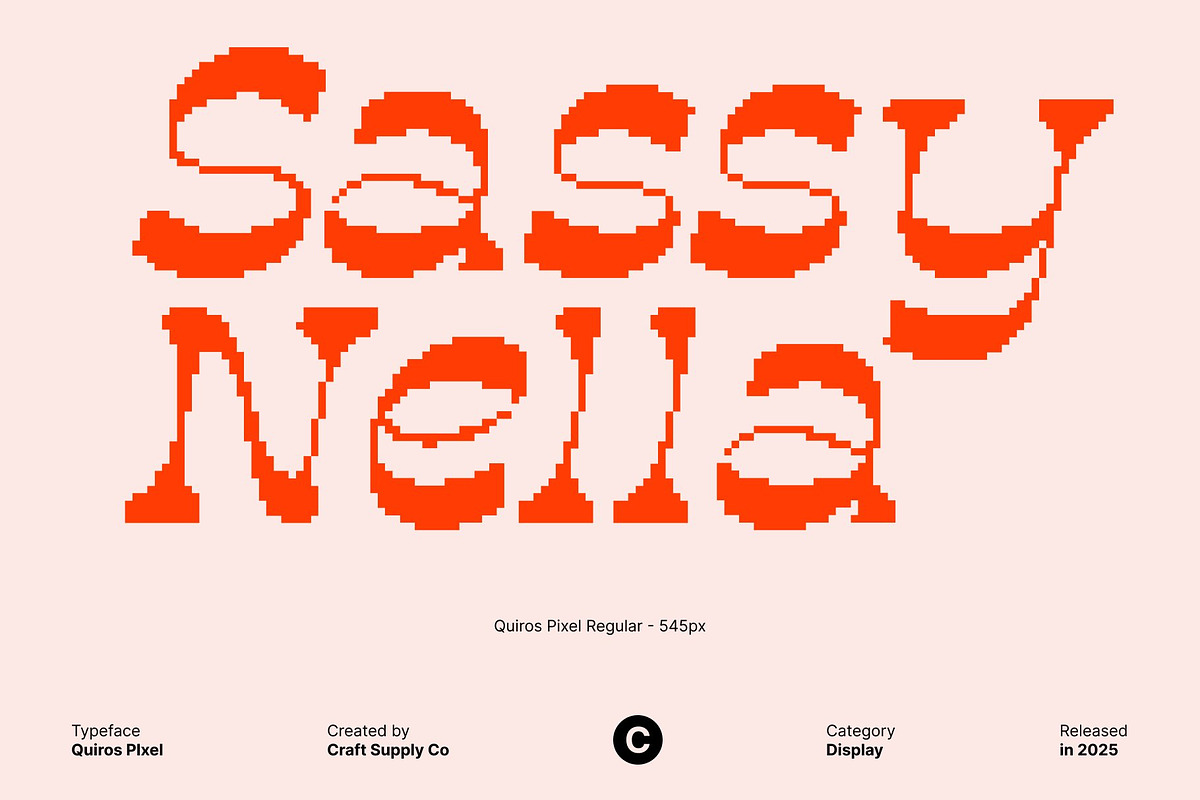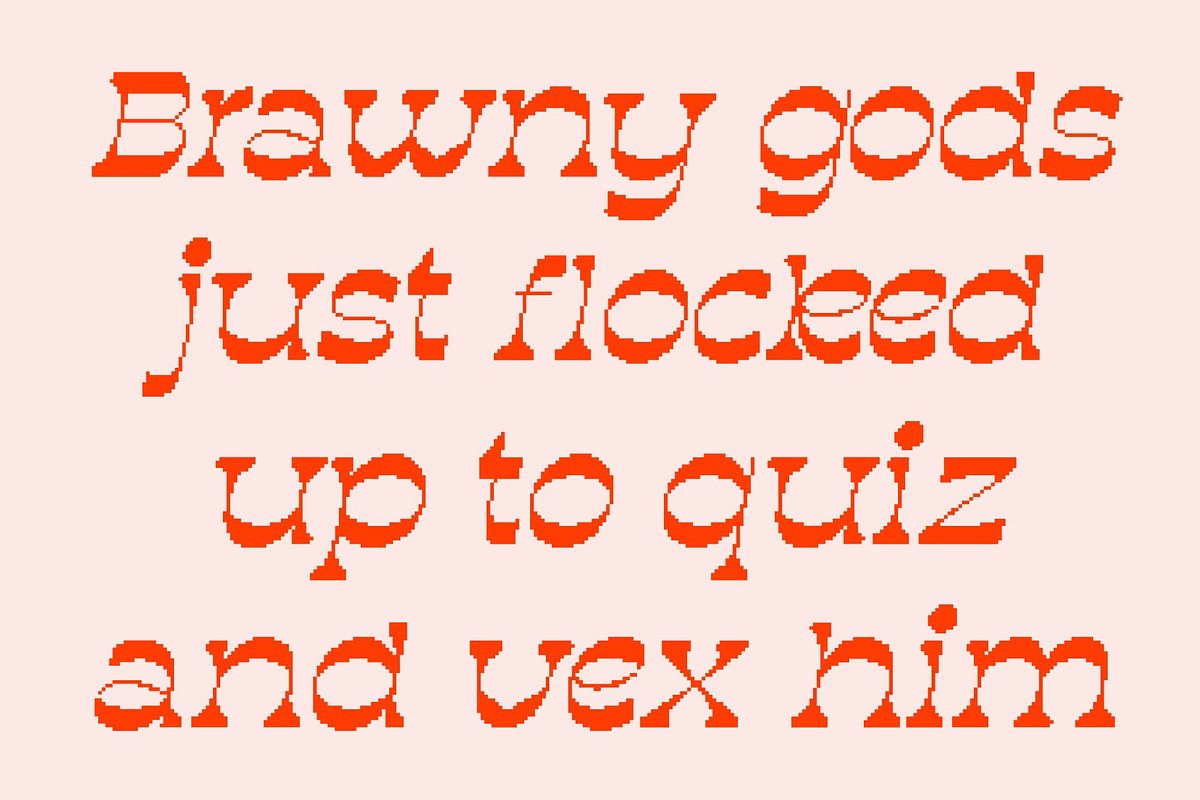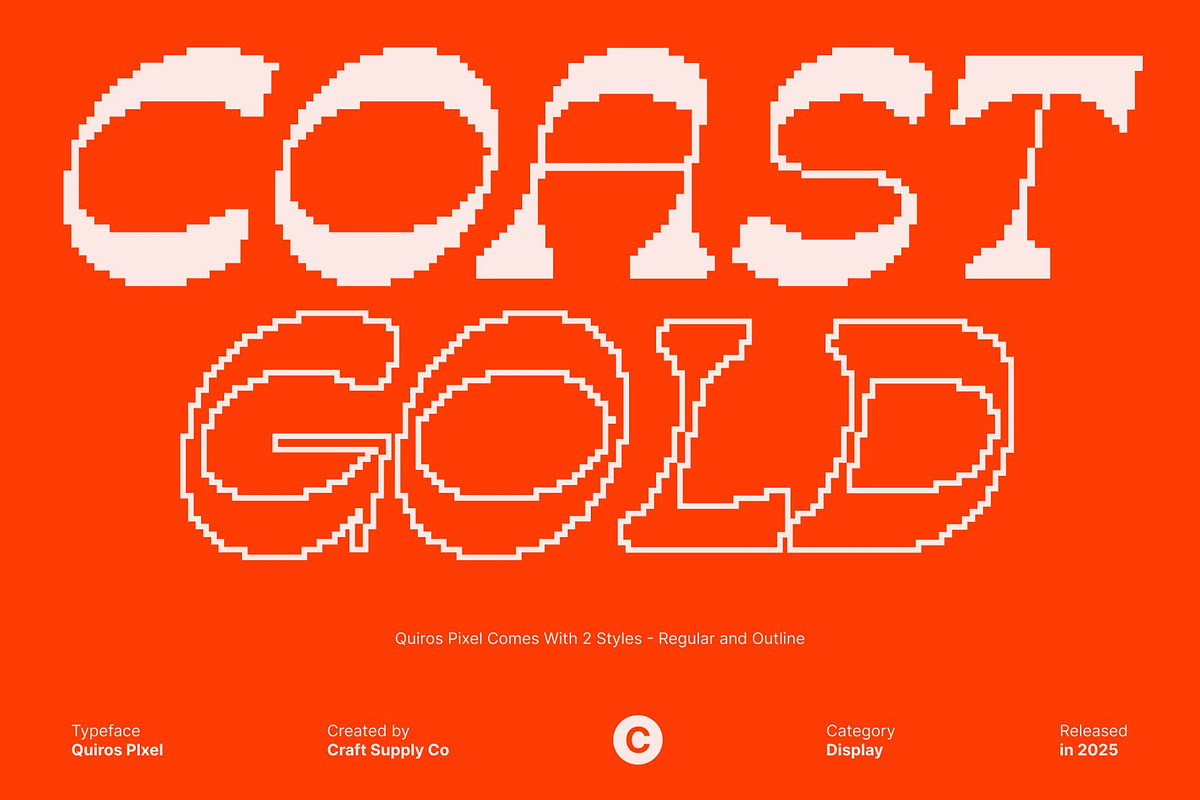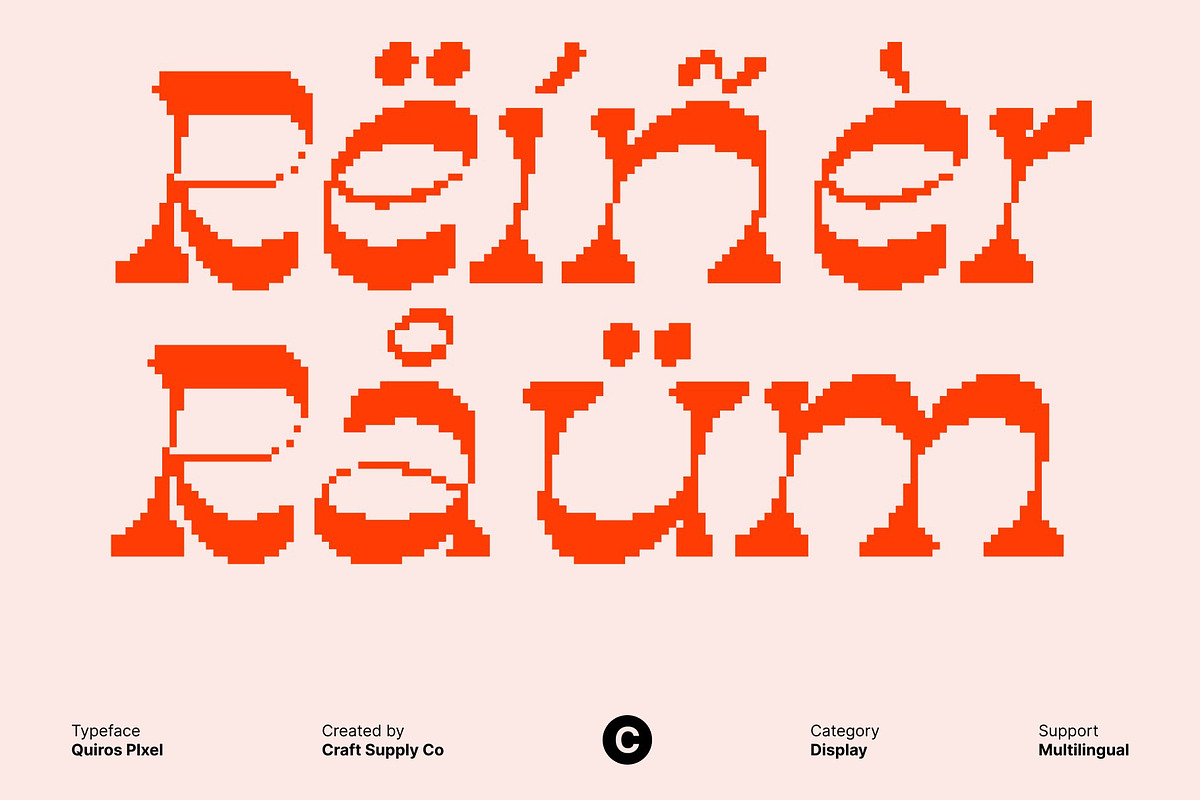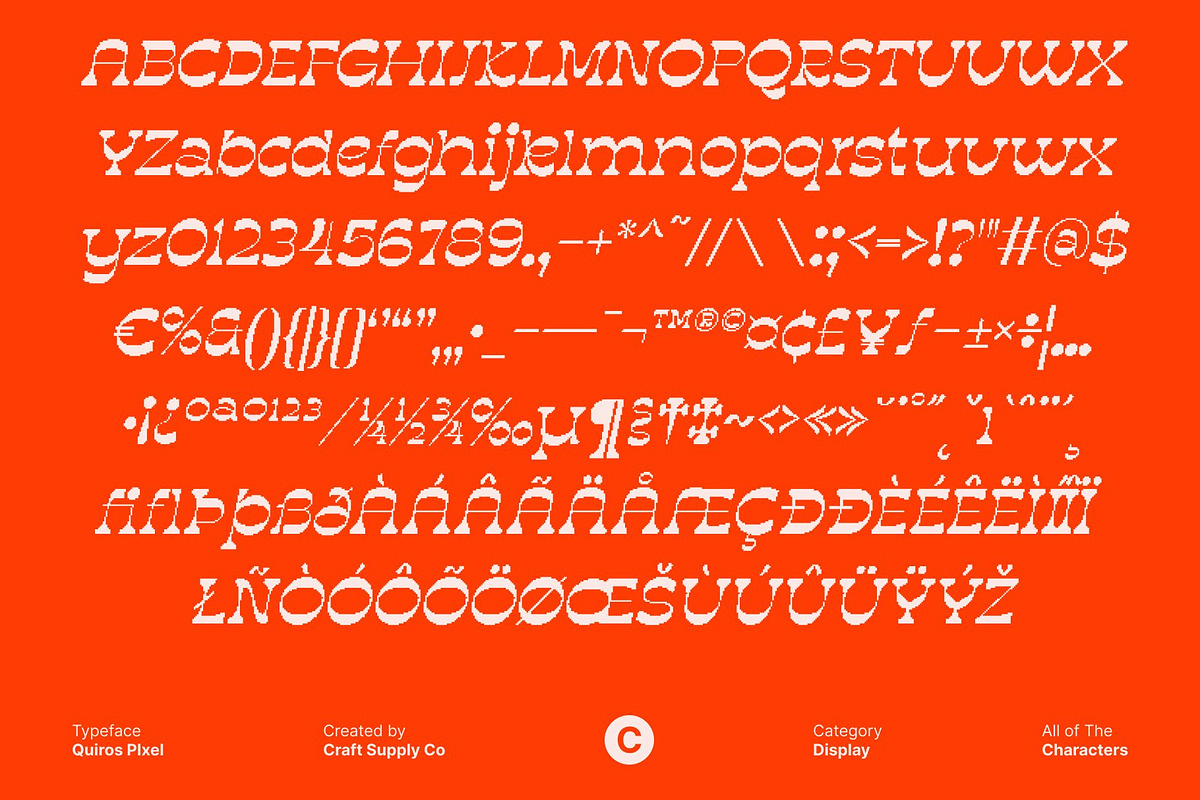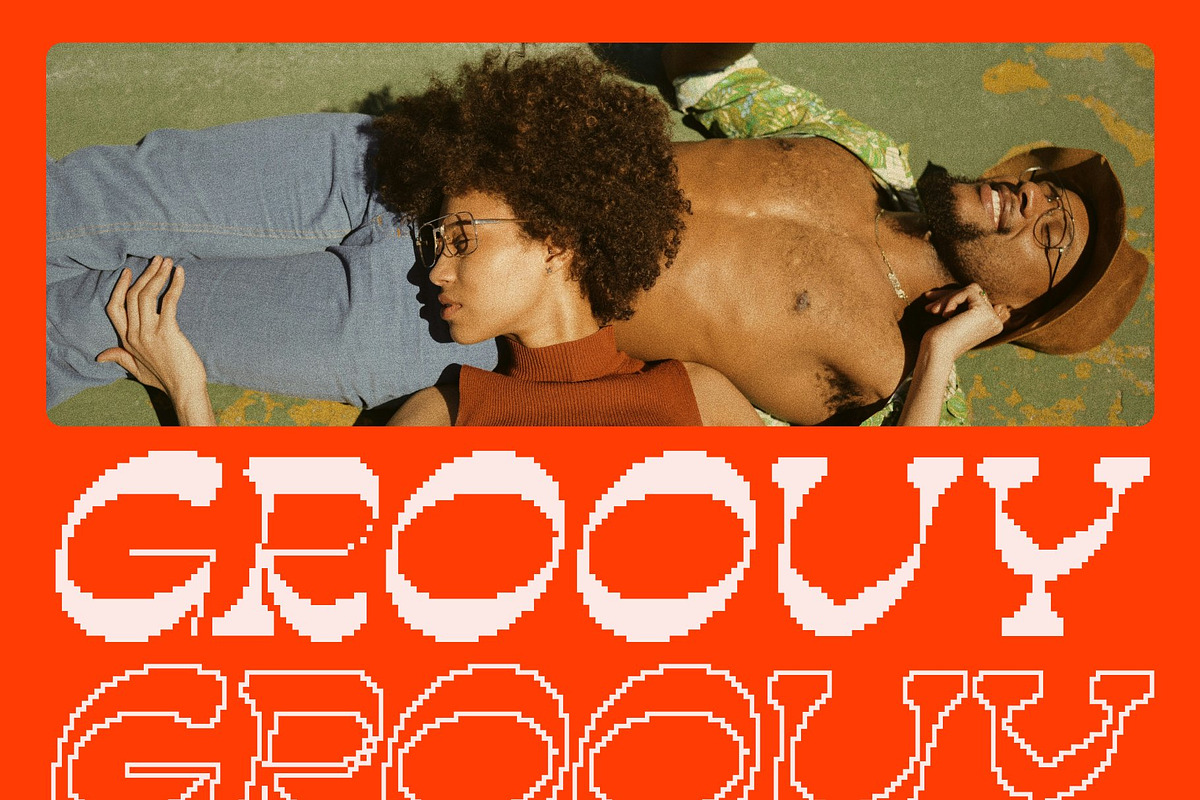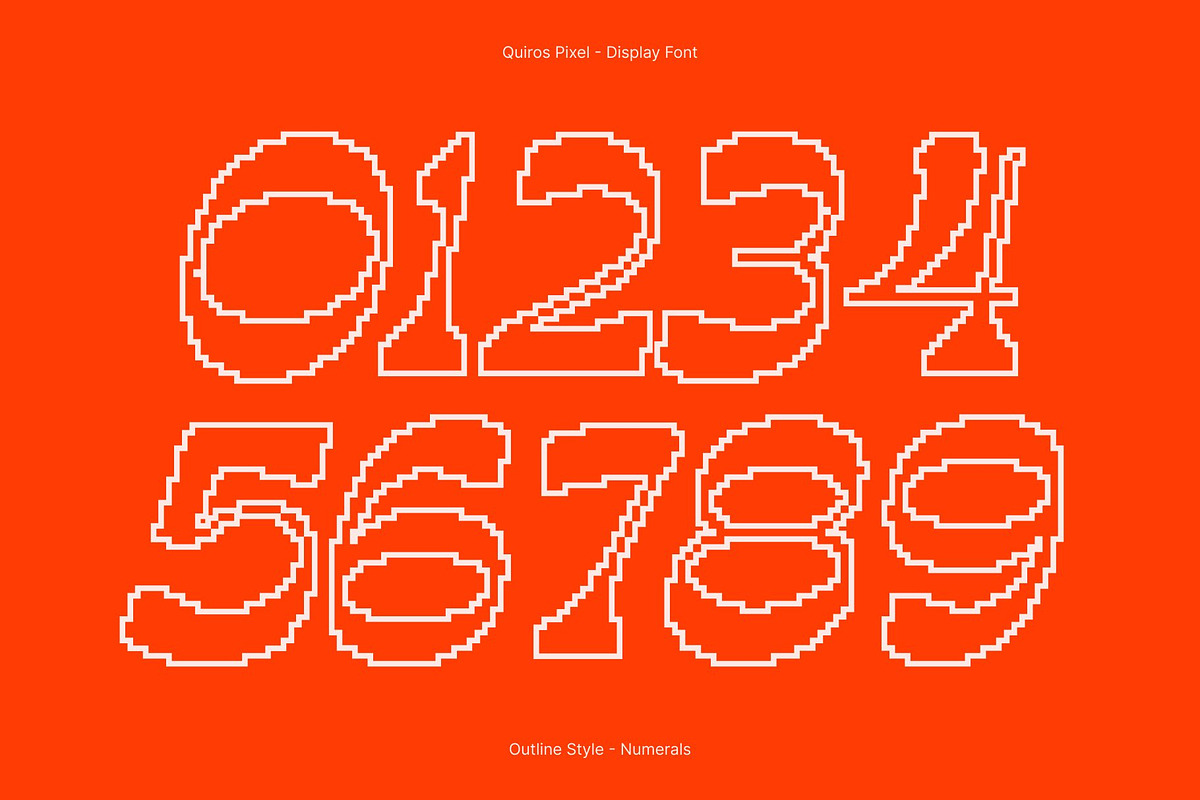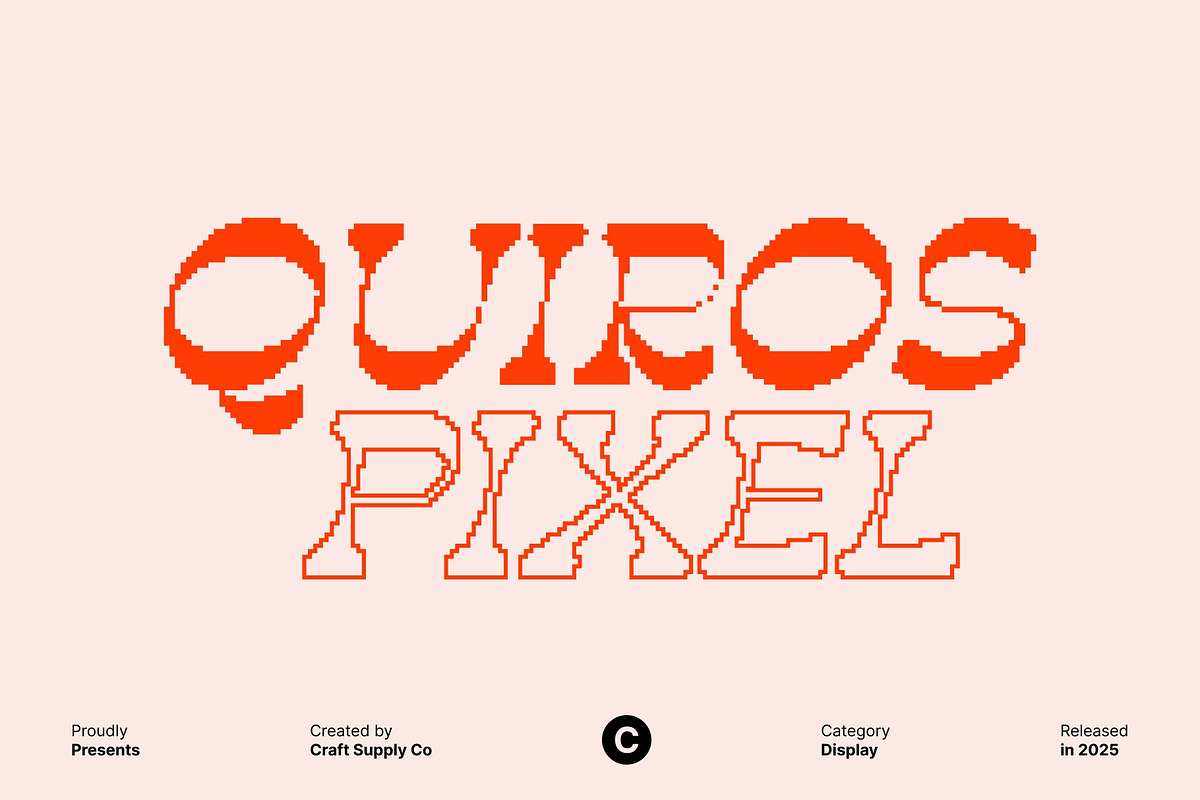
Quiros Pixel
Quiros Pixel – Retro-Inspired Reverse Contrast Sans Serif with Pixel Texture
Retro Style Meets Modern Digital Flair This is a distinctive reverse contrast sans serif font that fuses retro elegance with contemporary design. Its modular aesthetics and bold structural contrasts create a striking visual rhythm, making it perfect for designers seeking a typeface that celebrates classic design movements while remaining fresh and eye-catching.
Reverse Contrast and Modular Geometry for Distinctiveness The defining feature of this font is its reverse contrast structure, where thick and thin strokes are inverted for a bold and unconventional look. Combined with modular geometric forms, each character exhibits a visually captivating rhythm that balances sophistication and playfulness.
Pixel Texture Adds Unique Digital Character Enhanced with a pixelated style, this font introduces a digital layer that gives each letter a distinctive, blocky charm. This pixel effect adds depth, personality, and creative flair, transforming the retro-inspired forms into a modern, digital-friendly font. The result is a typeface that bridges classic design influences with contemporary digital aesthetics.
Perfect for Posters, Branding, Editorials, and Distinctive Design This font excels in applications that require bold, memorable typography. Its blend of reverse contrast elegance, modular precision, and pixel-inspired details makes it perfect for posters, branding campaigns, editorial layouts, and promotional designs.